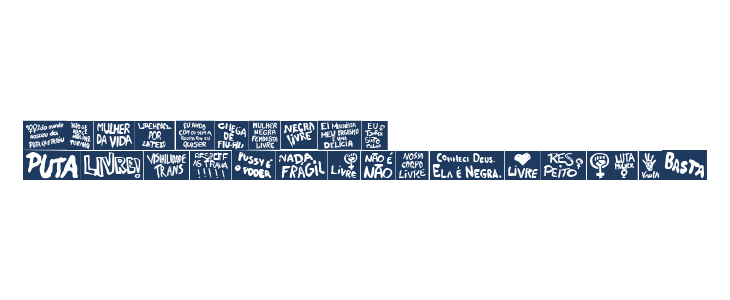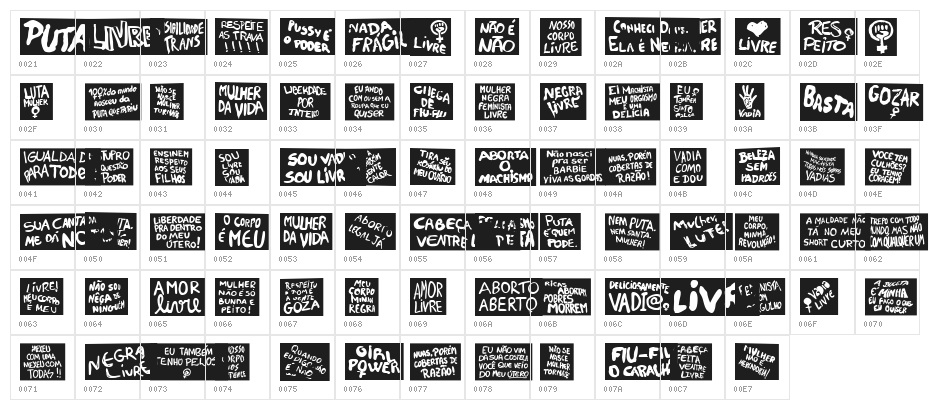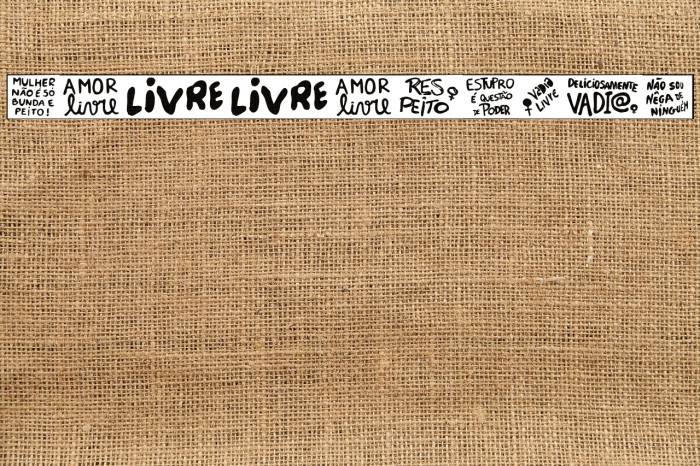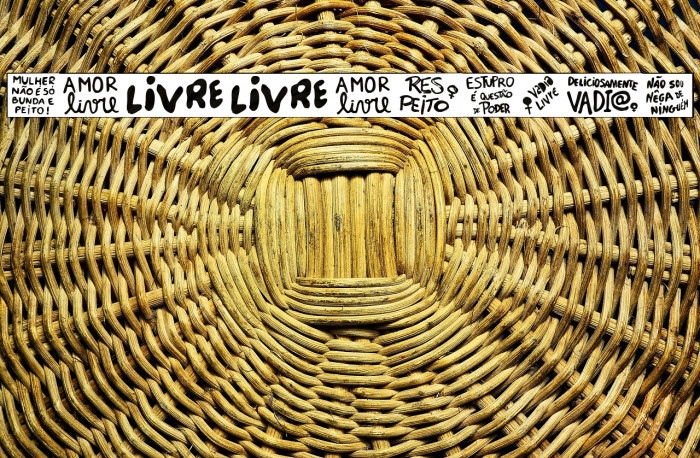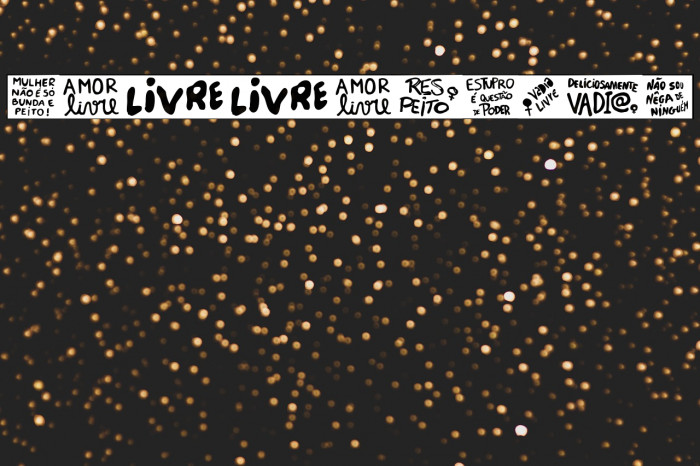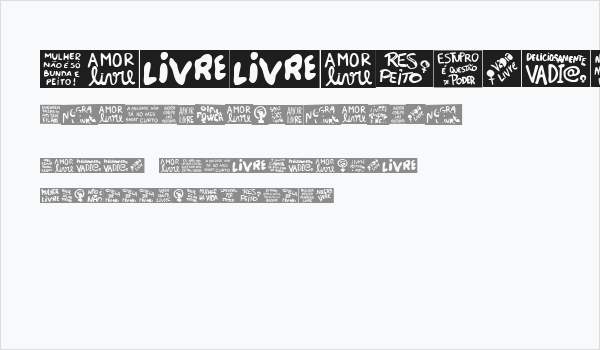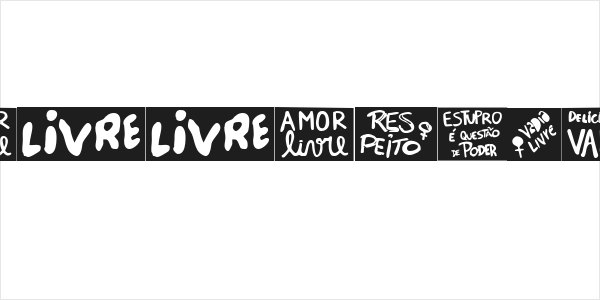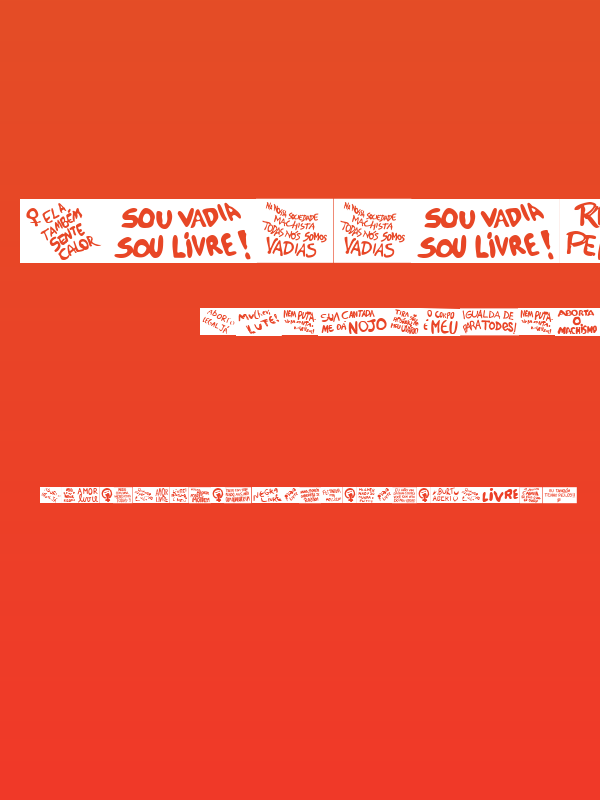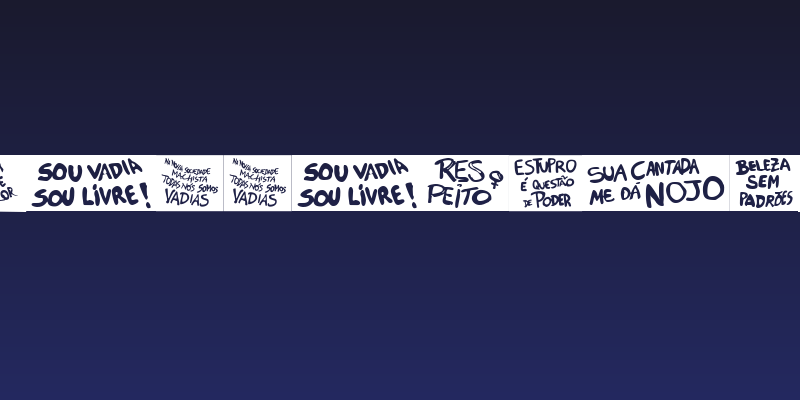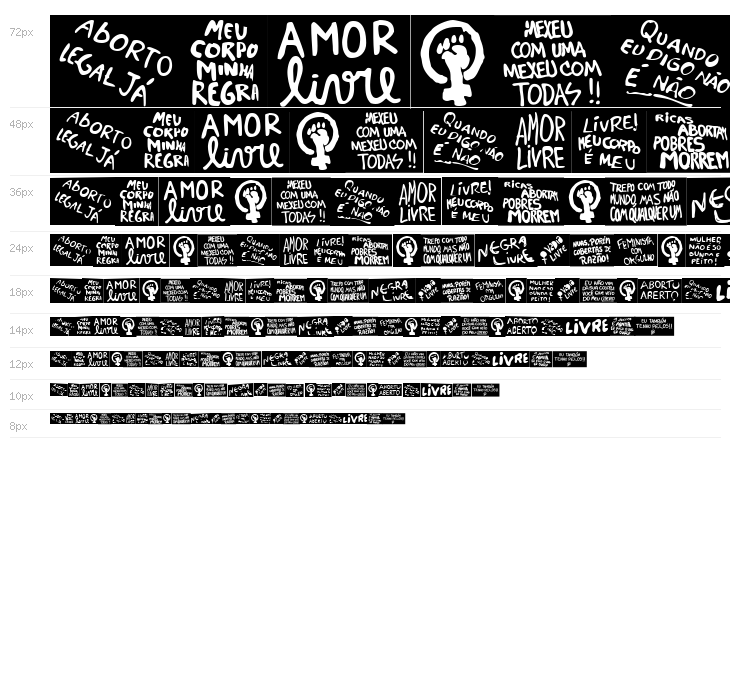
femme-Bold Font
femme-Bold Description
This font features a bold, expressive style with a hand-drawn appearance. Each character is uniquely crafted, giving it a personal and artistic feel. The letters vary in size and shape, adding to the dynamic and energetic look. The strokes are thick and uneven, contributing to a sense of spontaneity and creativity. This font is ideal for projects that require a strong, impactful visual statement. It captures attention with its playful and rebellious vibe, making it suitable for creative and unconventional designs.
| Use Case | Headlines, Artistic designs, Posters |
| Proposed Projects | Ideal for posters, protest signs, artistic projects, and any design needing a bold, creative touch. |